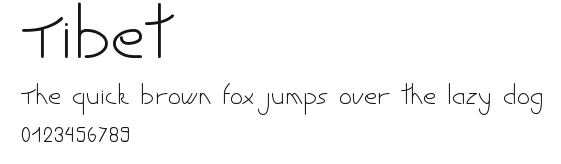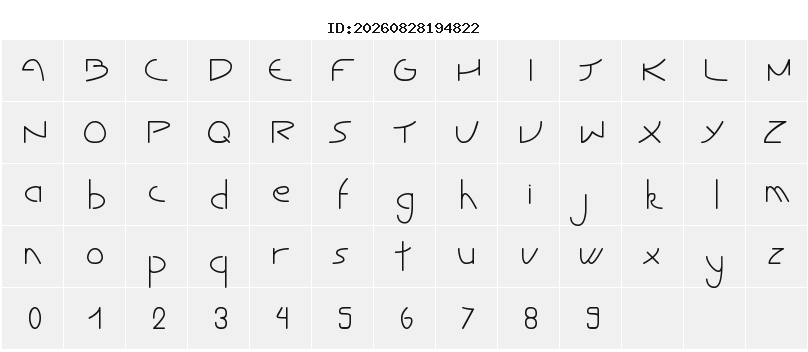
• Font Name: Tibet
• Full Font Name: Tibet
• Version: Version 1.00 October 28, 2015, initial release
• Description: Tibet - Spiritual typeface designed by Kipics.
About Tibet.ttf
Tibet.ttf is a modern, elegant sans-serif font designed for ultimate readability and visual harmony. Perfect for branding, headlines, web design, and print materials.